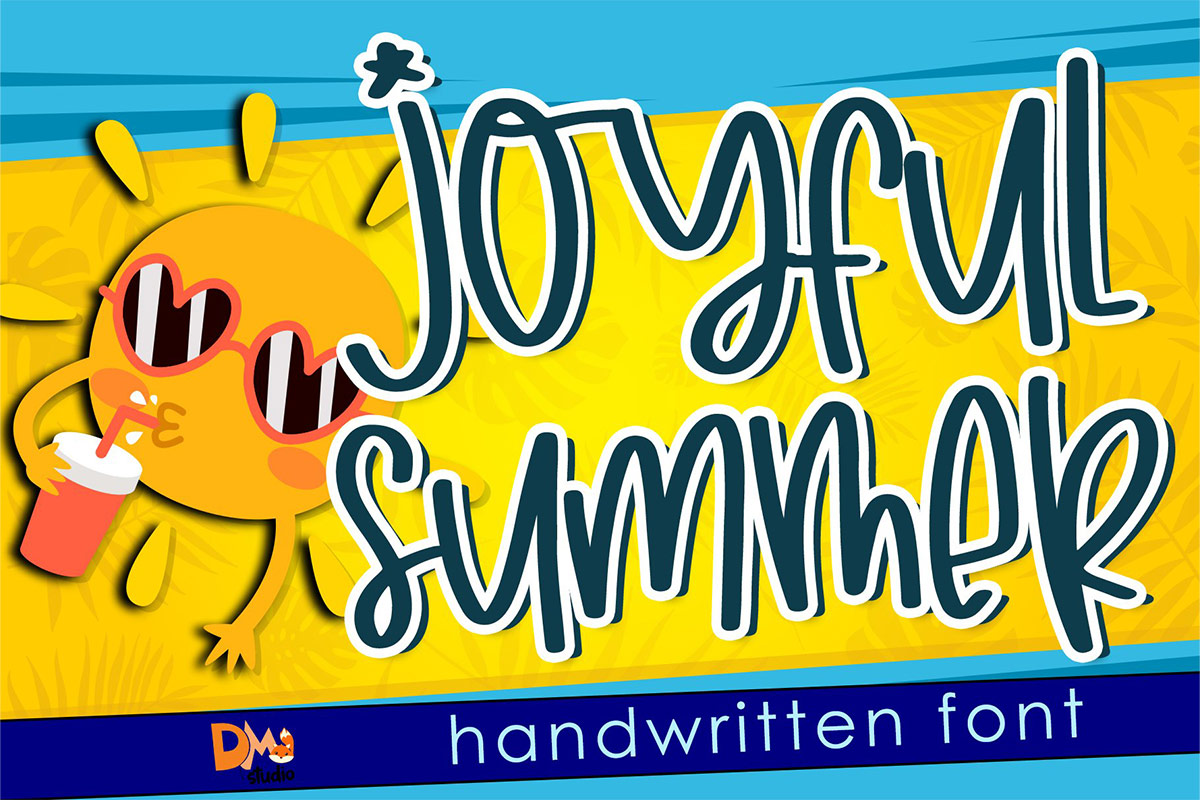
Joyfull Summer – Handwritten Font
The Joyfull Summer Handwritten Font is a delightful and lively typeface that embodies the essence of sunny days and carefree moments. With its playful letterforms and energetic strokes, this font adds a touch of joy and vibrancy to your designs, making it perfect for summer-themed projects, greeting cards, logos, and other creative endeavors.
1. Playful and Lively Style: The Joyfull Summer Font exudes a fun and cheerful aesthetic. Its whimsical letterforms and energetic strokes capture the essence of joyful summer days, creating a delightful and lively look for your designs.
2. Handwritten Appeal: The font emulates the spontaneous and authentic quality of handwriting, adding a personal touch to your designs. It evokes the carefree spirit of doodles and scribbles, making it suitable for projects that aim to convey a sense of warmth and playfulness.
3. Versatile Application: This font is versatile and well-suited for various design projects that celebrate the spirit of summer and the joy of life. Use it in summer-themed designs, greeting cards, logos, social media graphics, and more to infuse your designs with a sense of vibrancy and positivity.
4. Uppercase and Lowercase Letters: The font includes both uppercase and lowercase letters, providing flexibility and creative freedom in your designs. Mix and match the cases to create visually appealing and balanced typography.
5. Punctuation and Symbols: In addition to the alphabet, the Joyfull Summer Font includes a comprehensive set of punctuation marks, numerals, and common symbols. This ensures consistency and ease of use when incorporating the font into your design projects.
Infuse your designs with the playful and vibrant vibe of the Joyfull Summer Handwritten Font. Let its whimsical letterforms and energetic strokes bring a touch of joy and positivity to your summer-themed projects, greeting cards, and logos. Embrace the carefree spirit of this font and create designs that celebrate the sunny and joyful moments of life.